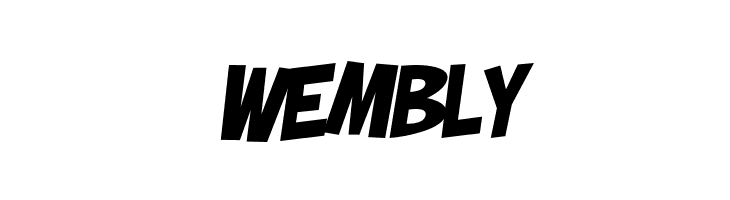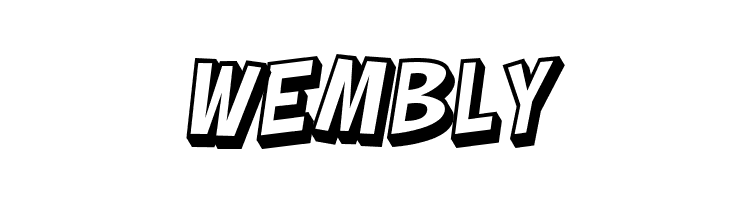
Urban Defender Semi-Italic Font
- Font: Urban Defender Semi-Italic
- Weight: Semi-Italic
A modern, oblique font with clean lines and a dynamic style.